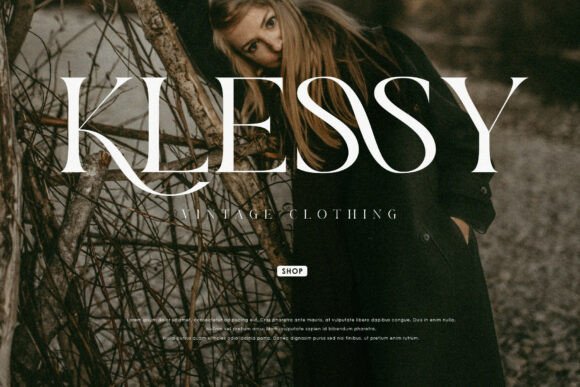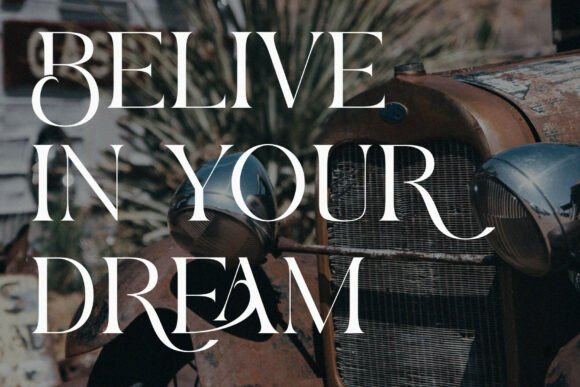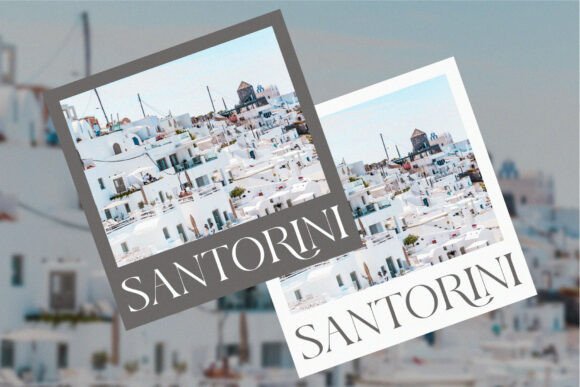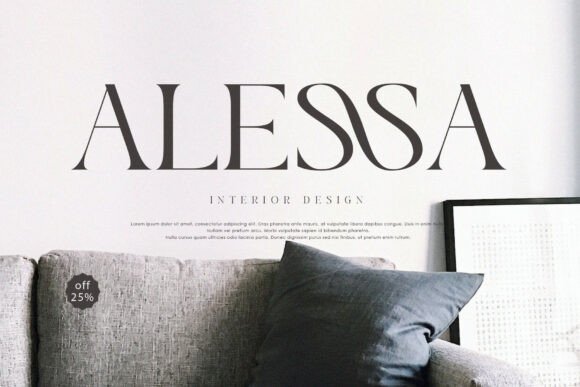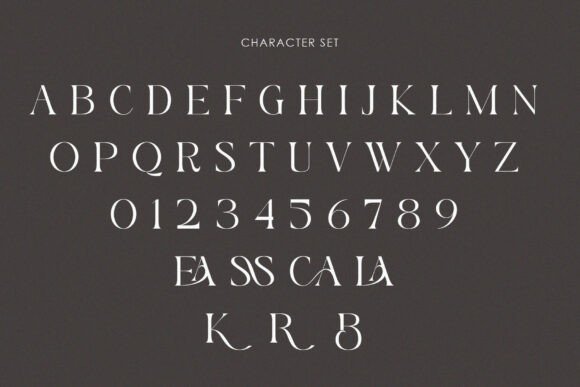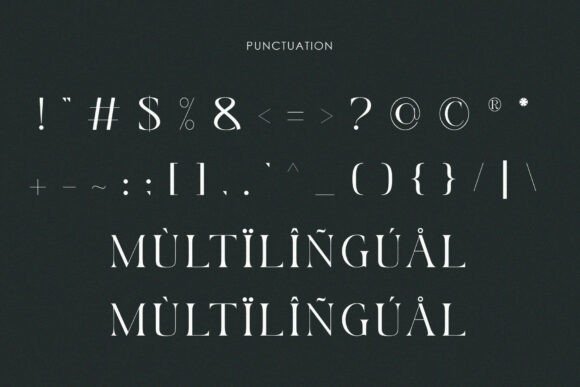
Introducing Carmila Font: Elevate Your Visual Storytelling with Elegance and Sophistication
In the world of typography, a font can make or break the visual identity of a brand. For those seeking to convey luxury, sophistication, and high-end style, Carmila Font is the ultimate choice. This modern serif font is specifically designed for editorial and brand identities that demand the highest level of elegance and refinement.
The Essence of Carmila Font
Carmila Font boasts elegant, high-contrast strokes that exude a sense of drama and fluidity. Its sharp serifs and “romantic-chic” soul make it the perfect fit for luxury fashion branding, boutique beauty logos, editorial magazine headers, and cinematic “ethereal-style” social media layouts. The typeface features fluid swashes that weave through the letterforms, creating a sense of movement and evoking the essence of “haute-couture” luxury.
Unparalleled Versatility
One of the standout features of Carmila Font is its versatility. Whether you’re designing a logo for a high-end fashion brand, creating an editorial spread for a luxury lifestyle magazine, or crafting a social media layout for a boutique beauty brand, Carmila Font adapts seamlessly to any visual identity. Its unique blend of classic sophistication and modern flair makes it an excellent choice for designers seeking to create a lasting impression.
Carmila Font’s design characteristics are what set it apart from other serif fonts. Some of its notable features include:
- Elegant, high-contrast strokes: Carmila’s strokes are designed to create a sense of drama and fluidity, making it perfect for headlines and titles.
- Fluid swashes: The swashes that weave through the letterforms add a touch of elegance and sophistication, creating a sense of movement and luxury.
- Sharp serifs: The sharp serifs give Carmila Font a refined and polished look, making it ideal for high-end branding and editorial design.
- “Romantic-chic” soul: Carmila Font’s unique personality is characterized by a sense of romance and chicness, making it perfect for luxury fashion and beauty brands.
Applications of Carmila Font
Carmila Font’s versatility makes it suitable for a wide range of applications, including:
- Luxury fashion branding: Carmila Font is the perfect choice for high-end fashion brands seeking to convey elegance and sophistication.
- Boutique beauty logos: The font’s unique blend of classic and modern elements makes it an excellent fit for boutique beauty brands.
- Editorial magazine headers: Carmila Font’s elegant design makes it perfect for editorial magazine headers, adding a touch of luxury and sophistication to any publication.
- Cinematic “ethereal-style” social media layouts: The font’s fluid swashes and elegant strokes create a sense of movement and drama, making it ideal for social media layouts.
Why Choose Carmila Font?
With so many fonts available, why choose Carmila Font? Here are just a few reasons:
- Unique and distinctive: Carmila Font’s elegant design and fluid swashes make it stand out from other serif fonts.
- High-end quality: The font’s sophisticated design and refined features make it perfect for high-end branding and editorial design.
- Versatile: Carmila Font adapts seamlessly to any visual identity, making it an excellent choice for designers seeking to create a lasting impression.
In conclusion, Carmila Font is the ultimate choice for designers seeking to elevate their visual storytelling with elegance and sophistication. Its unique blend of classic sophistication and modern flair makes it perfect for luxury fashion branding, boutique beauty logos, editorial magazine headers, and cinematic “ethereal-style” social media layouts. With its sharp serifs and “romantic-chic” soul, Carmila Font is sure to make a lasting impression.